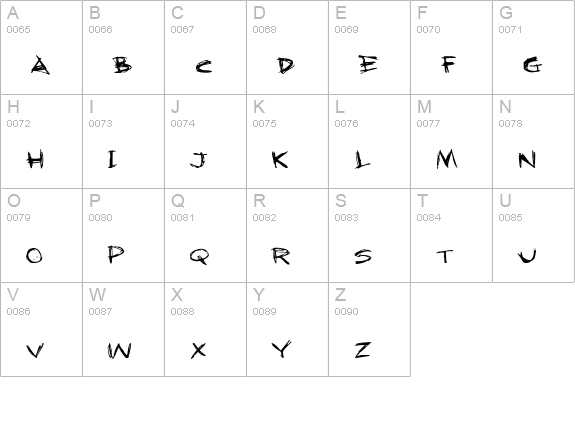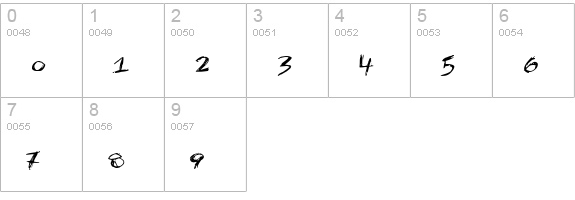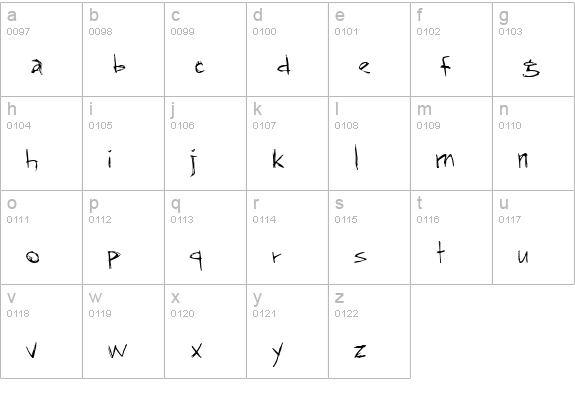
RapJack Font Details
Introducing RapJack font - a bold and dynamic typeface that exudes energy and attitude! With its sharp edges and sleek lines, RapJack is perfect for making a statement in your designs. Whether you're creating album covers, posters, or merchandise, this font will definitely stand out. Best of all, RapJack is absolutely free to download at FontsMarket.com! So go ahead and add this powerful font to your collection and let your creativity flow with its unique style and versatility. Make a bold impression with RapJack font today!